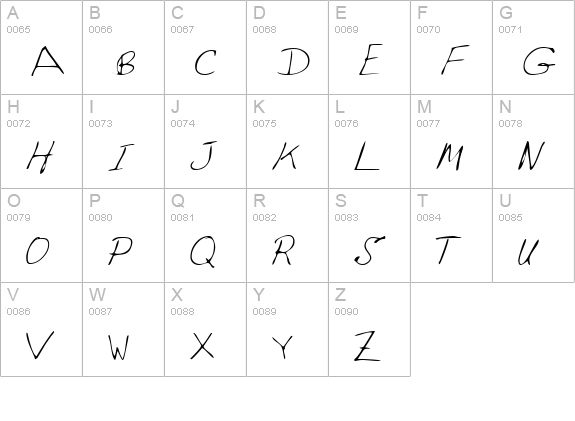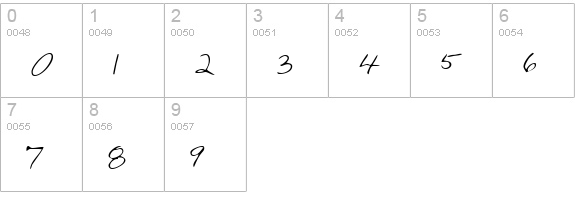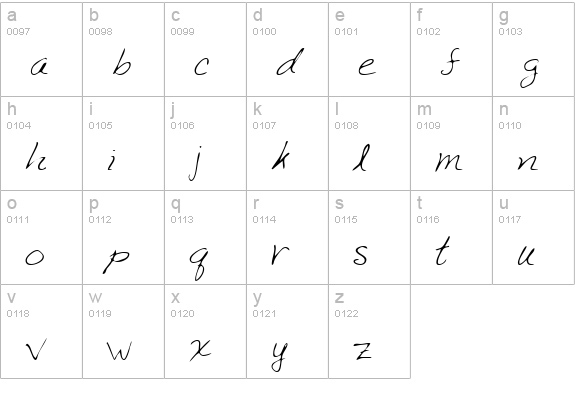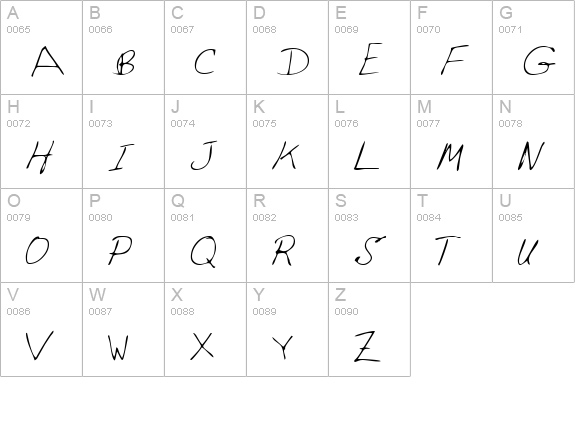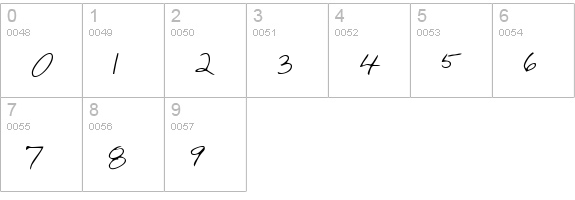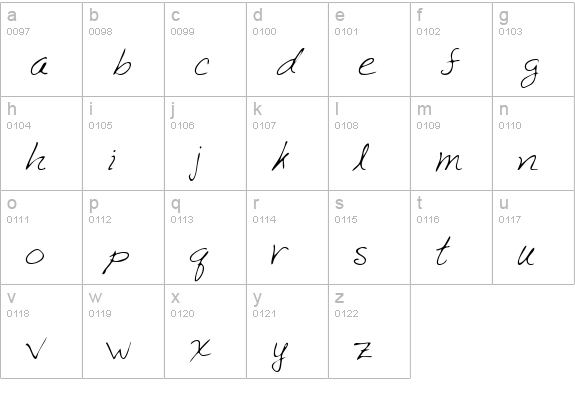
OscarsHand Regular Font Details
OscarsHand Regular is the standard, neutral variant in the OscarsHand typeface family \xE2\x80\x94 well suited to general body text, paragraphs, and standard typographic work.
OscarsHand Regular font is a charming and whimsical typeface perfect for adding a touch of personality to your design projects. This playful font features a hand-drawn style with unique character shapes that will make your text stand out. Whether you're creating invitations, posters, or branding materials, OscarsHand Regular is sure to bring a fun and friendly vibe to your work. Best of all, OscarsHand Regular font is available for free download at FontsMarket.com. So, you can easily add this delightful font to your collection without any cost. Don't miss out on the opportunity to enhance your designs with the cheerful and creative flair of OscarsHand Regular font - download it today and let your creativity shine!